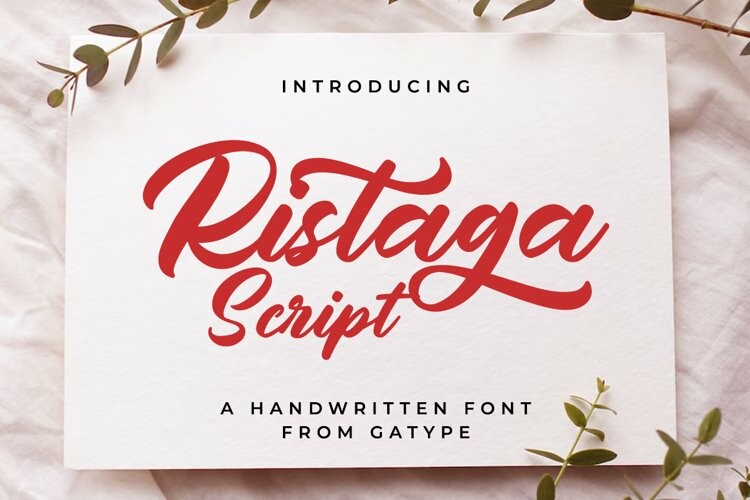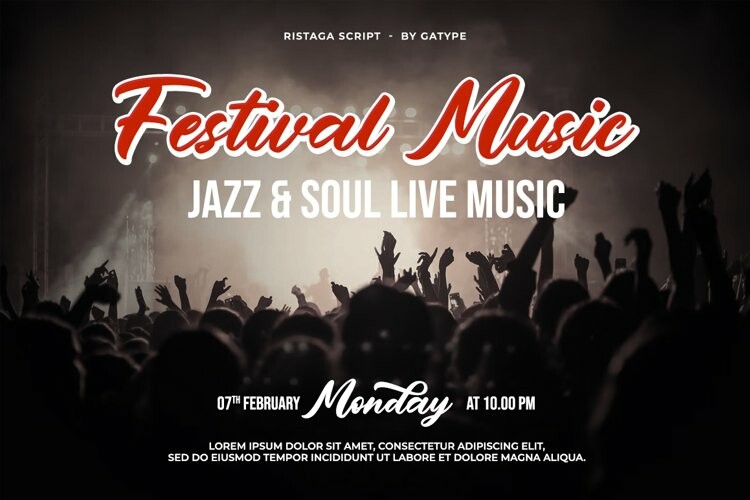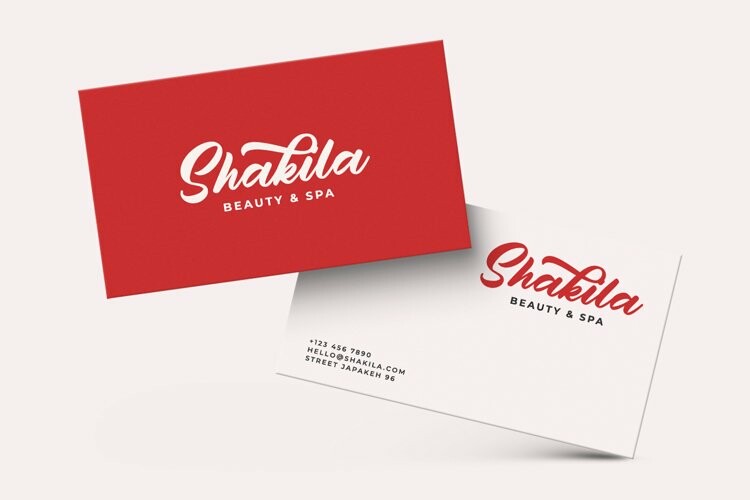
Ristaga Script Font
Ristaga Script FontRistaga Script is an old-school inspired script typeface that pairs perfectly with bold and tough type. Very awesome for labels & logos. I’m starting to create typefaces to use in a branding project and I think Gibson is the missing font from my Type Collection. Perfect for use in everything from Branding, Web, Packaging, Etc.